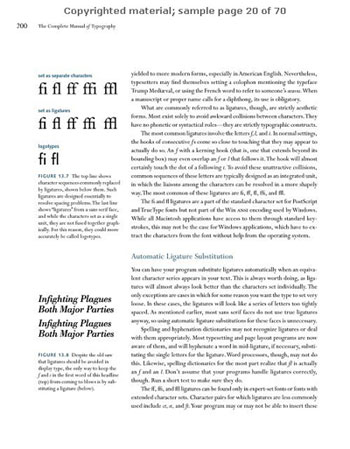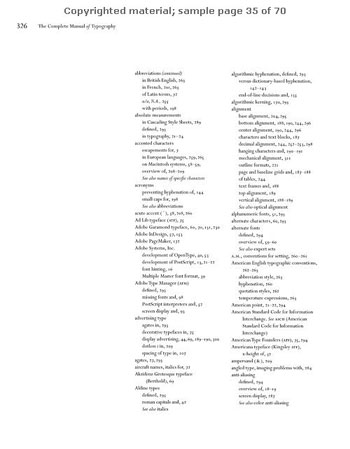
dot-font: Can a Book Teach You to Set Type Perfectly?
Many important rules and guidelines for setting type have been forgotten by today's design practitioners. Can a single book tell you everything you need to know? John D. Berry looks at James Felici's "Complete Manual of Typography."
The purpose of James Felici's new book, "The Complete Manual of Typography" (Peachpit Press, 2003), might best be expressed in its subtitle: "A Guide to Setting Perfect Type." Felici insists that he's showing how to set type well, not why to make particular design decisions. There may be no such thing as "perfect" typesetting -- experts disagree about which practices are best -- but a thorough explanation of the factors involved in mastering this craft may give users the tools they need to make their own decisions and to end up with good results.
Reading this book is like sitting down with a long-time typesetter and going over the details of a complex job, pausing to ruminate on underlying principles and everyday rules of thumb, with occasional digressions to examine a fine point to the participants' mutual satisfaction. Most people will use it as a reference -- which it is -- but reading any section straight through is rewarding. The writing is clear and straightforward, and Felici has obviously thought long and hard about everything he deals with here.
Imperfection
Well, almost everything. I noticed a few areas that got short shrift, such as the proliferation of humanist sans-serif text faces or the complexities of setting type in languages other than English; and a few things that I'd have liked to see considered, such as the effect of the letter design itself on the best way to space a spiky, high-contrast text face like Didot or Bodoni. But on the whole, this is an admirably thorough book.
It's a how-to book, divided into three sections: about a hundred pages of "Typographic Basics," a much longer main section on the details of "How to Set Type," and a final section comprising a detailed glossary and index and a very truncated list of suggestions for further reading.
Rules of Thumb
Felici gives his readers a lot of useful advice about specific problems, and he even includes a couple of handy suggestions that I hadn't encountered before. One of them is a rule of thumb for calculating how much extra leading to use with a typeface, depending on the length of the line: "simply divide the measure (in picas) by the size of the type (in points)" and round off the result to the nearest half point. Add that number to the point size, and you've got a reasonable leading value for a block of text of that width. If you make the measure wider, then the leading gets deeper, too -- which is as it should be, so the text will be easy to read. Obviously, this formula is just a rough-and-ready guide, since different typefaces look best with different amounts of space between the lines -- but it's a start.
I don't always agree with Felici. For instance, he asserts that sans-serif text faces are inherently less legible than serif faces. "The difference isn't vast," he says, "otherwise sans-serif faces would have dropped off the map -- but it is considerable." This is like saying that men are taller than women. As a statistical average, it's quite true -- but the most interesting variations take place in the huge area of overlap. There are simply more important factors in determining whether a typeface will work well in text than whether it has serifs or not.
That said, I'm interested in Felici's suggestion that sans-serif text faces usually work best when set to a narrower measure than serif text faces. This is another of those generalizations that will vary from typeface to typeface, but it's a useful way of approaching the problem.
And I'm firmly in the camp he pooh-poohs, of typographers who believe that justified type looks best when set with no variation at all in the spaces between letters. But Felici always comes down firmly on the side of the reader; when he allows slight variations in spacing, he does so only "as long as the fundamentals of legibility and readability are honored, and this means that such variations should be kept to a minimum." The nature of typesetting text is that you are constantly confronted with intractable problems, where no solution works perfectly; the art is in finding the best out of a bunch of imperfect answers.
For that reason, even hard-and-fast "rules" such as "no more than two hyphens in a row" or "never hyphenate the last word in a paragraph" are subject to review. Sometimes it's less disruptive to break one of these rules than to hew to it slavishly and make a mess someplace else. Felici is very good at showing the complex consequences of our decisions in setting type.
Getting Technical
Chapter 10, "Controlling Hyphenation and Justification," may be the most thorough explanation of how a page-layout program actually sets type that you can find outside of an engineering spec. The example on pp. 134-136, "How H&J Works," where he imagines the decisions that a text composition program makes as a sort of internal dialog, is very clear and to the point. It doesn't, of course, delve into all the possible branches of the decision-making process, but it makes the nature of that process plain.
The one thing Felici doesn't do, in most cases, is name specific page-layout programs and explain how they differ. I suppose he chose to do this in order to avoid getting bogged down in the ever-changing details of new software versions, but it would have been helpful to see, for instance, how QuarkXPress and PageMaker and InDesign differ in their approach to text composition.
The danger with a book this authoritative is simply that readers will take the author's word as gospel, and follow his guidelines blindly -- whereas what Felici would obviously prefer is that they use his knowledge and his recommendations as a jumping-off point for their own explorations of the art and craft of typesetting.